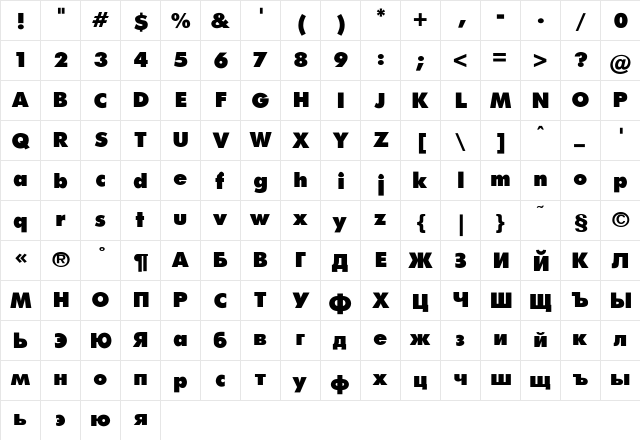
Futura_Extra_Black-Normal Regular
Design Context for Futura_Extra_Black-Normal Typeface
Futura_Extra_Black-Normal channels digital-age aesthetics through its sharp, structured letterforms — ideal for brands that want to signal innovation.
Pro Tip: Try Futura_Extra_Black-Normal with generous letter-spacing in UI labels and navigation — the geometric forms benefit from room to breathe.